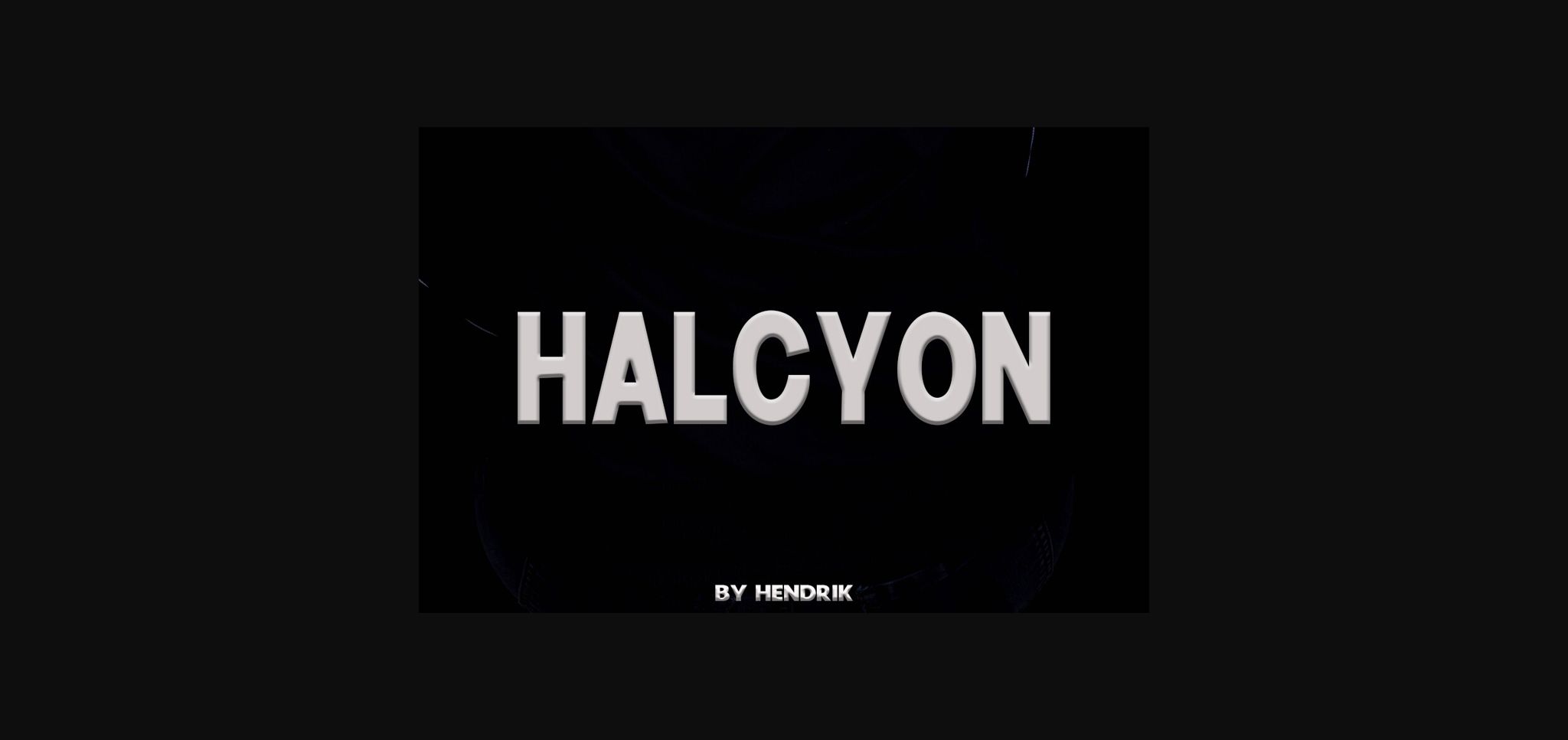
Halcyon Font
About Halcyon Font
Halycon is a cool and modern sans serif font. Whether you’re using it for crafts, digital design, presentations, or making greeting cards.